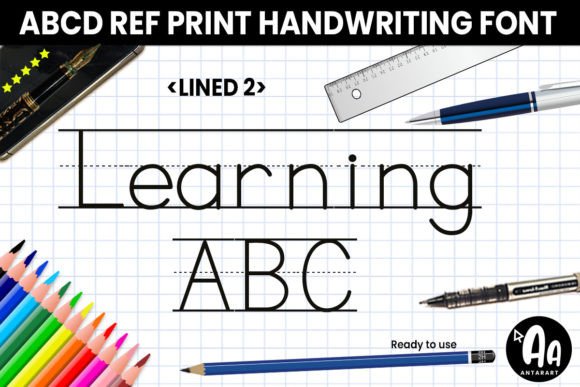
Unlocking Creative Learning with ABCD Ref Lined2 Font
Are you a designer, crafter, or educator looking for innovative ways to make learning the alphabet a fun and interactive experience? Look no further than the ABCD Ref Lined2 font, a practical display font based on the D’Nealian Method US school. This versatile font is designed to help you create thousands of engaging worksheets, making it an excellent resource for those who want to teach or learn the print alphabet in an enjoyable and interactive way.
What is ABCD Ref Lined2 Font?
The ABCD Ref Lined2 font is part of the ABCD Ref font family, carefully crafted to facilitate the creation of educational materials. By utilizing this font, users can design a wide range of worksheets, activity sheets, and other learning resources that cater to diverse learning styles. The font’s design is rooted in the D’Nealian Method, a renowned approach to teaching handwriting that emphasizes proper letter formation and positioning.
For designers and crafters, the ABCD Ref Lined2 font offers a wealth of creative possibilities. With this font, you can:
- Create custom worksheets, activity sheets, and educational resources for clients or personal projects.
- Design engaging and interactive learning materials for schools, daycare centers, or homeschooling programs.
- Develop unique and visually appealing alphabet charts, posters, and displays for classrooms or home learning environments.
- Customize the font to suit your design needs, ensuring consistency across various projects and applications.
Advantages for Educators and Learners
The ABCD Ref Lined2 font is an invaluable resource for educators and learners alike. By leveraging this font, teachers can:
- Create tailored learning materials that cater to individual students’ needs and learning styles.
- Develop interactive and engaging lesson plans that make learning the alphabet a fun experience.
- Encourage students to practice proper letter formation and handwriting techniques.
- Save time and effort in creating educational resources, allowing for more focus on teaching and student support.
Key Features of ABCD Ref Lined2 Font
The ABCD Ref Lined2 font boasts several key features that make it an excellent choice for educational projects:
- Based on the D’Nealian Method US school, ensuring consistency with established handwriting standards.
- Practical display font design, ideal for creating worksheets, activity sheets, and other learning resources.
- Compatible with various design software and applications, allowing for seamless integration into existing workflows.
- High-quality font that maintains clarity and legibility, even at smaller font sizes.
Tips and Ideas for Using ABCD Ref Lined2 Font
To get the most out of the ABCD Ref Lined2 font, consider the following tips and ideas:
- Combine the font with other educational design elements, such as images, icons, or graphics, to create visually engaging learning materials.
- Experiment with different font sizes, colors, and styles to create a unique and cohesive design.
- Use the font to create customized alphabet charts, posters, or displays for classrooms or home learning environments.
- Develop interactive worksheets and activity sheets that incorporate fun and engaging learning activities, such as word searches, mazes, or connect-the-dots exercises.
The ABCD Ref Lined2 font is a versatile and practical resource for designers, crafters, educators, and learners. By leveraging this font, users can create engaging, interactive, and effective learning materials that make learning the alphabet a fun and enjoyable experience. Whether you’re a seasoned designer or a teacher looking for innovative ways to teach the alphabet, the ABCD Ref Lined2 font is an excellent addition to your toolkit.